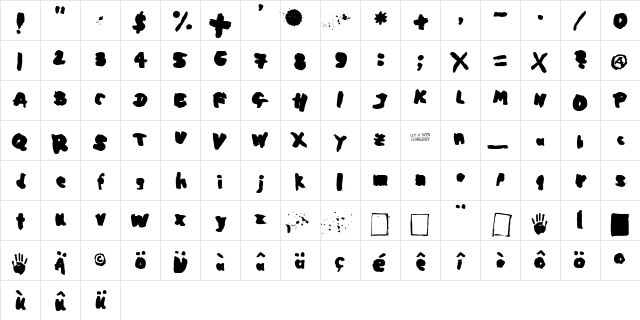
Mogadischu Regular
Design Context for Mogadischu Typeface
Mogadischu is a composed and adaptable typeface that performs quietly and consistently across a wide range of design contexts.